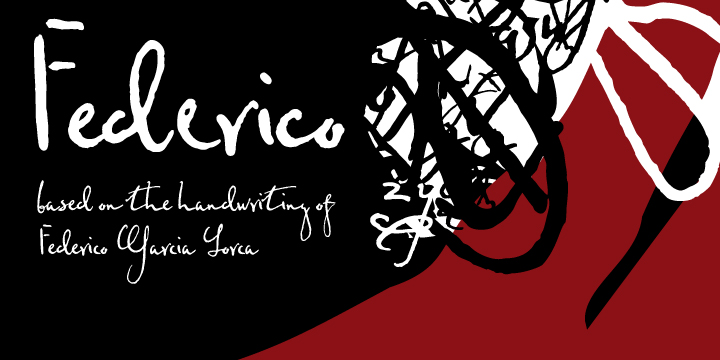
Federico is pseudo-handwriting font designed by Olga Umpeleva in 2007 and released by ParaType in 2008. The face is based on the handwriting of Federico Garcia Lorca, the eminent Spanish poet and playwright (1898-1936). Original version was designed for the book about Lorca. The face has an effect of pressure pointed quill writing of an emotional, negligent, creative man. For use in advertising and display typography, headline and subhead composition, as well as short text setting of small and large sizes.